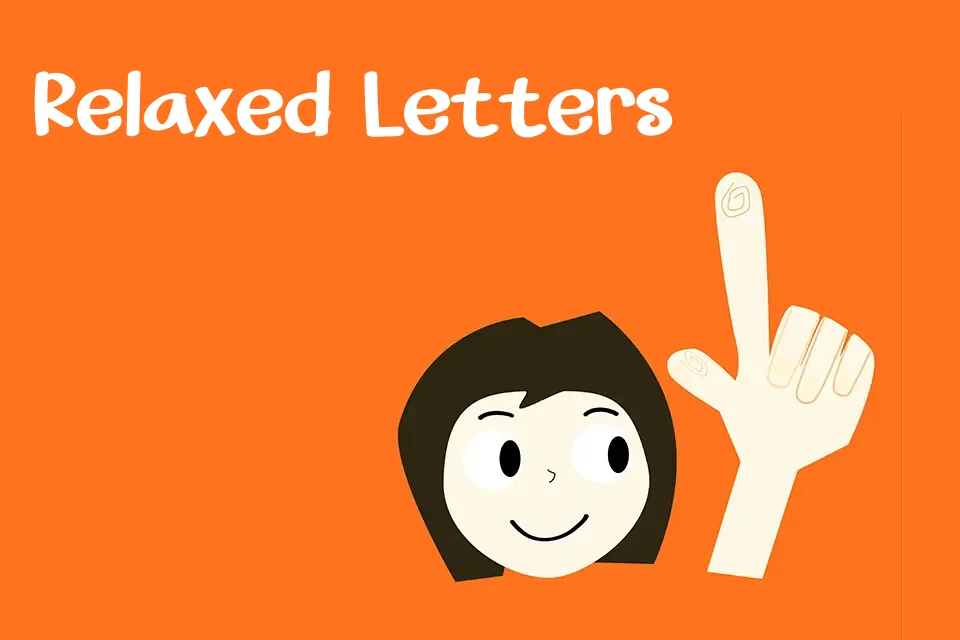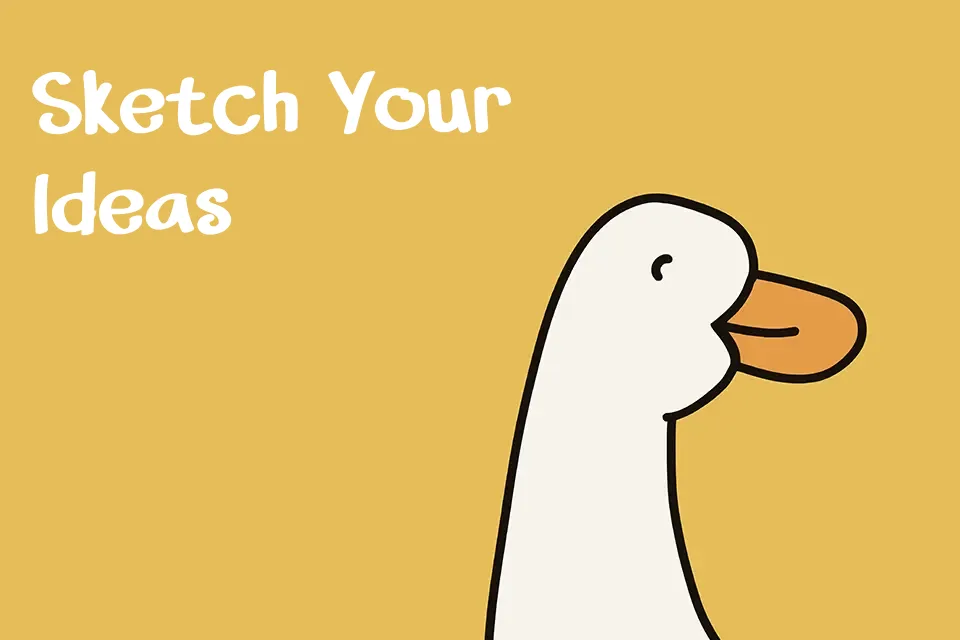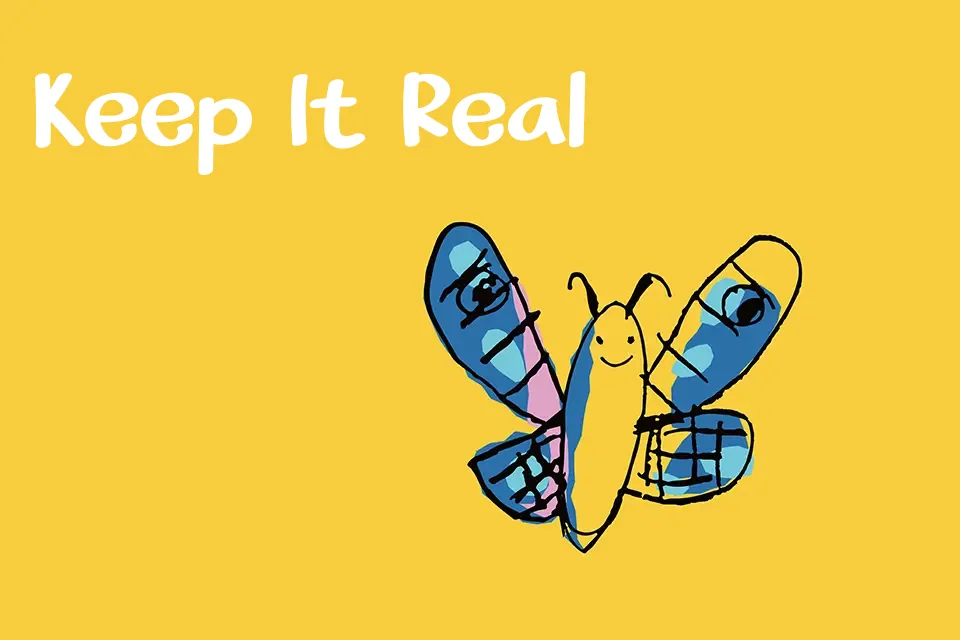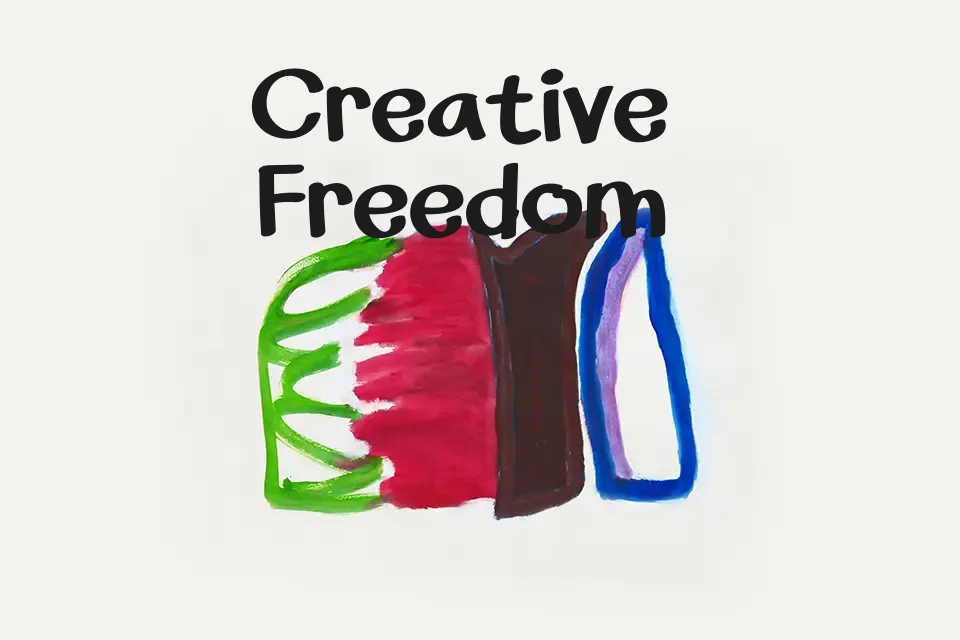
Queen Of Mermaid Font
The structural rhythm of the Queen Of Mermaid Font is defined by its bouncy baselines and soft, organic stroke variations. This casual handwritten typeface features smooth curves and slightly irregular letterforms that give it a warm, personalized touch. The spacing remains relatively open, which helps maintain clarity in medium to large display settings like posters and packaging. Because of its highly decorative nature and uneven proportions, the letterforms begin to lose their readability in smaller text formats. Dense forms reduce comfort during extended reading, so it performs best when used sparingly in headlines or short, punchy product labels rather than long editorial blocks.
children’s book covers, themed party invitations, casual product packaging, lighthearted branding
corporate legal documents, long paragraph text, dense editorial layouts, small interface labels
Perfect for branding, headline, and kids, with a cute and cartoon style.